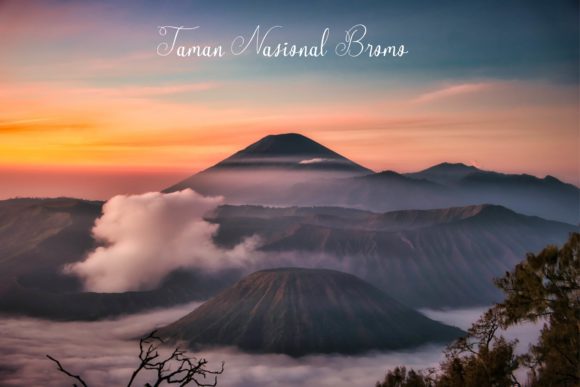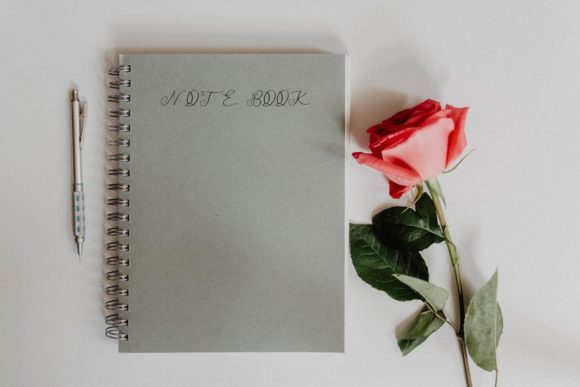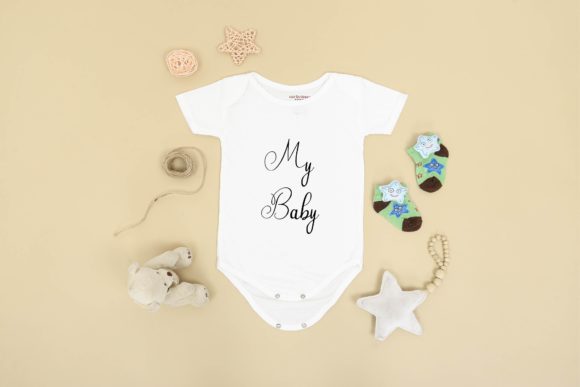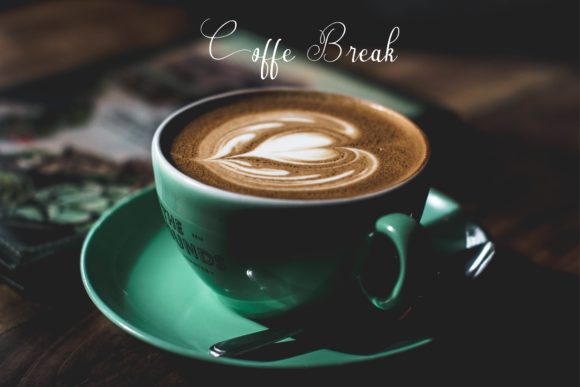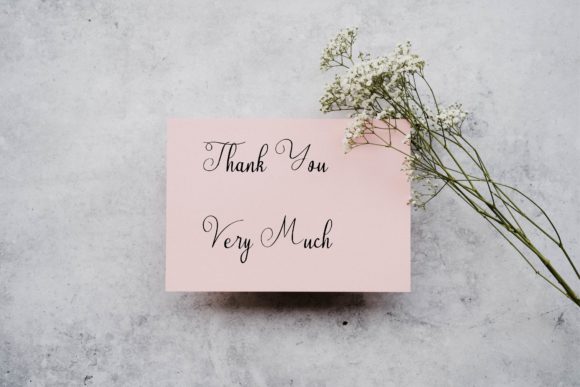
Introduction to Leuser Font
As a designer, there’s nothing quite like the thrill of discovering a new font that sparks creativity and elevates your work to the next level. For me, that moment came when I stumbled upon the Leuser Font – a beautiful and refined script font that exudes elegance and sophistication. Its modern look and feel immediately caught my attention, and I knew I had to share it with fellow designers.
The Leuser Font is more than just a pretty face; it’s a valuable resource for any design project that requires a touch of class and refinement. Whether you’re creating logos, branding materials, invitations, or social media posts, this font is sure to impress. With its transparent background and high-quality design, it’s the perfect addition to any creative project.
Key Features of Leuser Font
- High-quality design resource for creative projects: Leuser Font is a unique and stylish font that can elevate your design to the next level.
- Unique characteristics: Leuser Font features a unique blend of modern and vintage elements, making it a great choice for designers who want to add some personality to their work.
Honest Review: Leuser Font
I recently stumbled upon the Leuser Font while searching for a new design resource for my creative project. As a designer, I was excited to give it a try and see if it would live up to its promise.
First impressions are everything, and the Leuser Font definitely delivers. With a clean and minimalist aesthetic, it’s perfect for any design project that requires a touch of sophistication. I love how easy it is to use and how versatile it is – it’s great for both digital and print projects.
- ✨ Works well with transparent backgrounds, adding an extra layer of depth to designs
However, I do have a few criticisms. The Leuser Font is only available in a few weights, which can be a limitation for more complex design projects. Additionally, the font may not be suitable for projects that require a bold or dramatic font.
- ⚠️ Limited font weights
- ⚠️ May not be suitable for bold or dramatic design projects
Overall, I’m impressed with the Leuser Font and would definitely recommend it to fellow designers. While it may have some limitations, its high quality and versatility make it a valuable addition to any design library.
Tips for Getting the Most Out of Leuser Font
For the best results, use Leuser Font in combination with other design elements that complement its unique style. Experiment with different font sizes, colors, and layouts to create visually appealing designs.
The Leuser Font is ideal for a variety of creative projects, including: